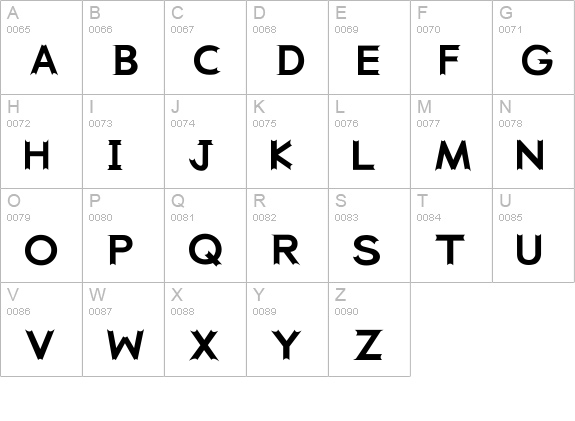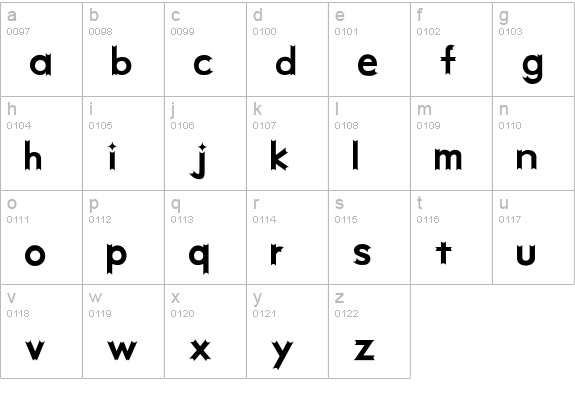
week (sRB) Font Details
Introducing the exquisite sRB font, a versatile typeface that will elevate your design projects to new heights. With its sleek and modern appearance, sRB is perfect for creating eye-catching headlines, branding materials, and more. The beauty of sRB lies in its clean lines and elegant curves, making it a superb choice for both digital and print applications. What's even better is that sRB is available for free download at FontsMarket.com! Yes, you heard that right - this stunning font can be yours at no cost, allowing you to enhance your designs without breaking the bank. Don't miss out on this fantastic opportunity to add sRB to your font collection today and take your creations to the next level.